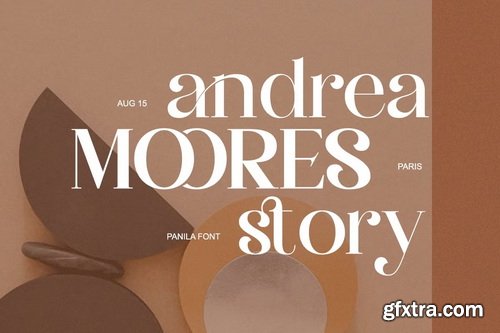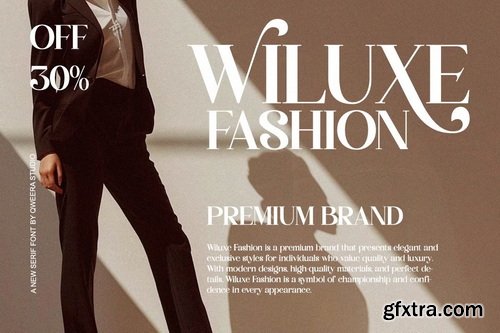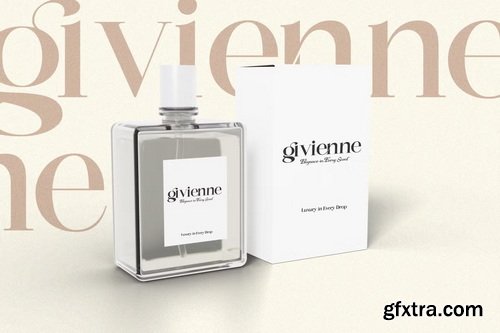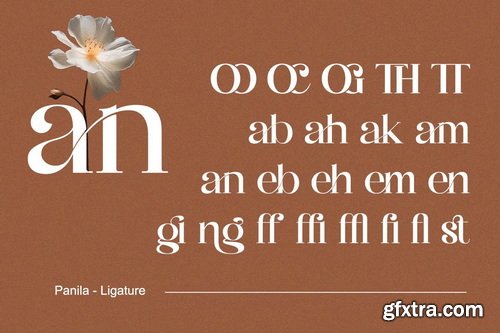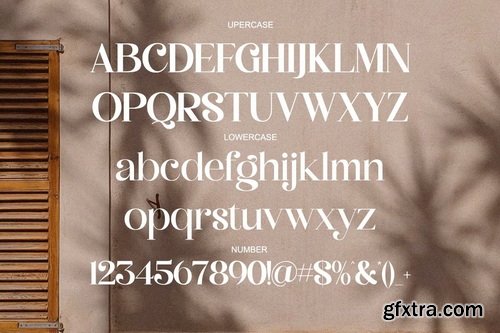
Panila is a sophisticated modern serif font that exudes elegance and exclusivity. Featuring both regular and italic versions with premium alternates and ligatures, this typeface is meticulously crafted for high-end branding, luxury logos, premium packaging, and exclusive poster designs. With its refined letterforms and balanced proportions, Panila delivers unparalleled versatility for luxury branding projects. The carefully designed alternates and ligatures allow you to create distinctive wordmarks that radiate sophistication and class.